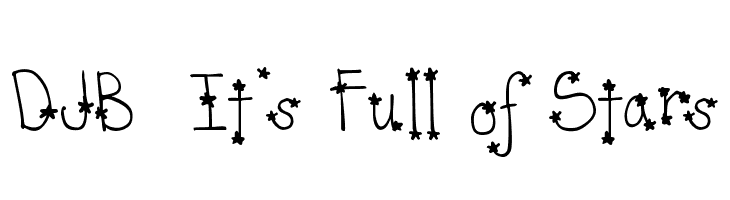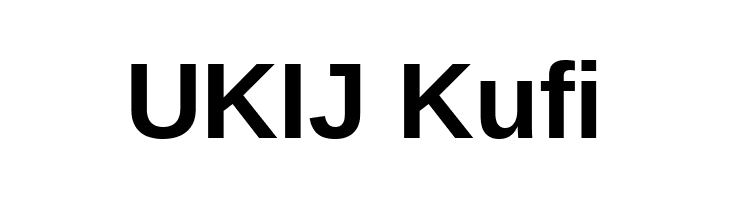
A clean, modern sans-serif font with excellent readability and versatility.
A playful, star-embellished font with a hand-drawn feel.
A bold, condensed font with a geometric and modern style.
A modern, monospaced typeface with uniform character width and a clean, technical design.
A modern, geometric font with clean, rounded edges and consistent stroke width.
A bold, italicized font with a futuristic, angular design.
A bold, playful font with thick, rounded characters and a whimsical style.
A playful, handwritten font with bold, irregular strokes and artistic flair.
A bold, cursive font with a playful and energetic style.